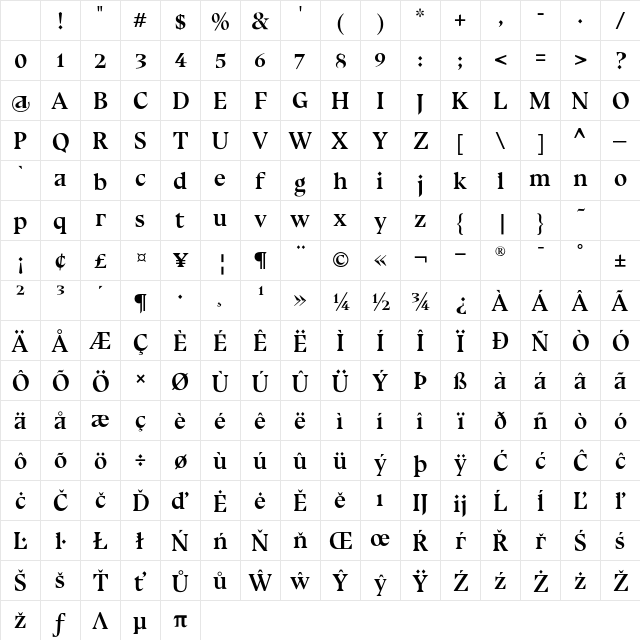
Bluu Next is a composed and adaptable typeface that performs quietly and consistently across a wide range of design contexts. Its bold stroke weight gives it real presence on the page.